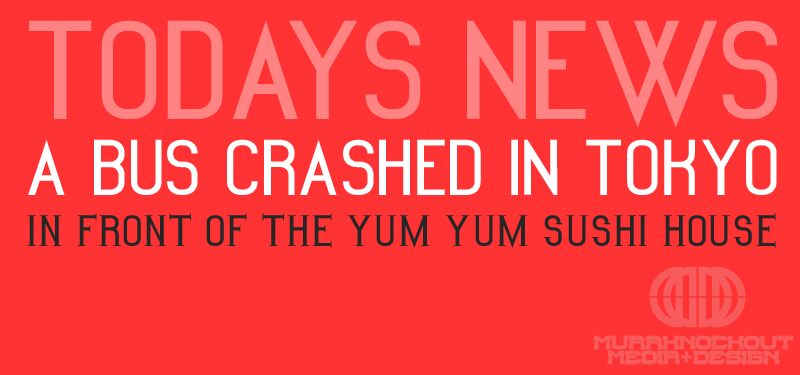
Kiona is a free high-contrast serif font with tall, commanding capitals and a distinctly editorial air. Its broad vertical strokes meet hairline-thin crossbars and sharply cut serifs. Several letters have unusually long, fine horizontal details, giving the design a crisp, tailored edge.
Fashion and luxury audiences are the clearest fit for this elegant, tightly drawn style, particularly in magazine mastheads, fragrance packaging, and boutique branding. Its dramatic stroke changes can also lend a formal, theatrical note to exhibition posters and cultural event programs, where the lettering can echo the clean lines of fashion photography or architectural imagery.
The font includes letters and numbers. Its uppercase characters have serifs, while its lowercase characters are also capital forms but sans serif.
I created the font for a website design.